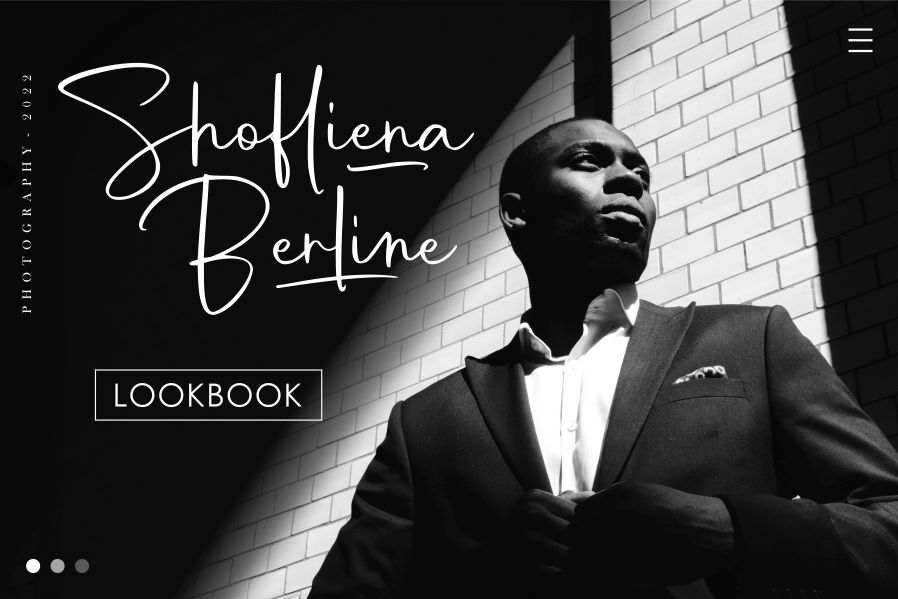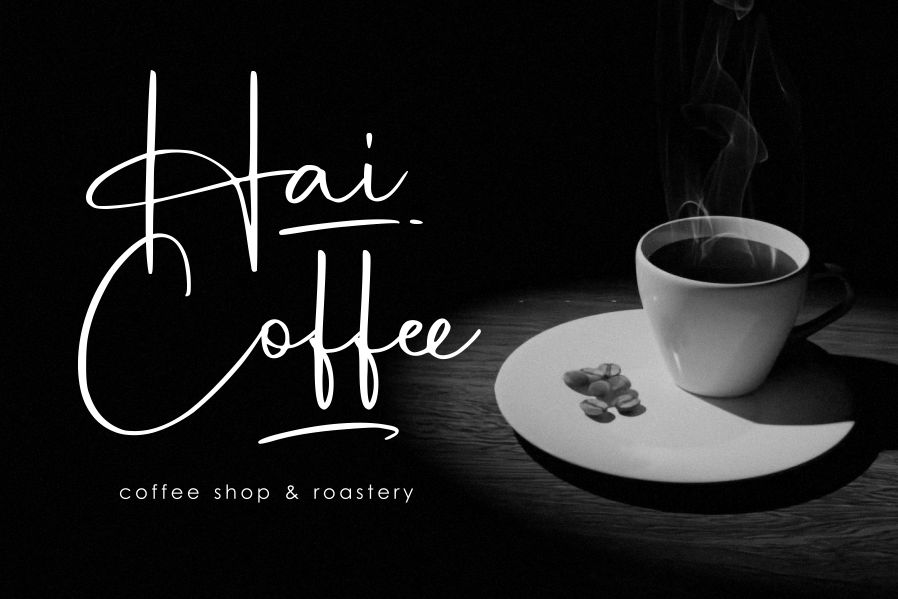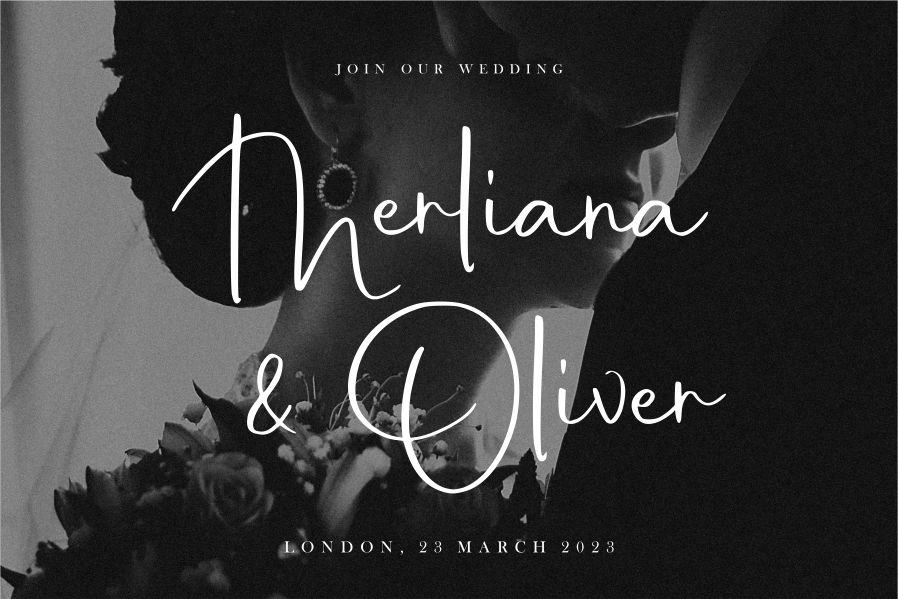
Adelliatte Font
Adelliatte Handwritten Font is a Handwritten Signature Font. Adelliatte is perfect for product packaging, branding project, magazines, social media, weddings, or just used to express words above the background.